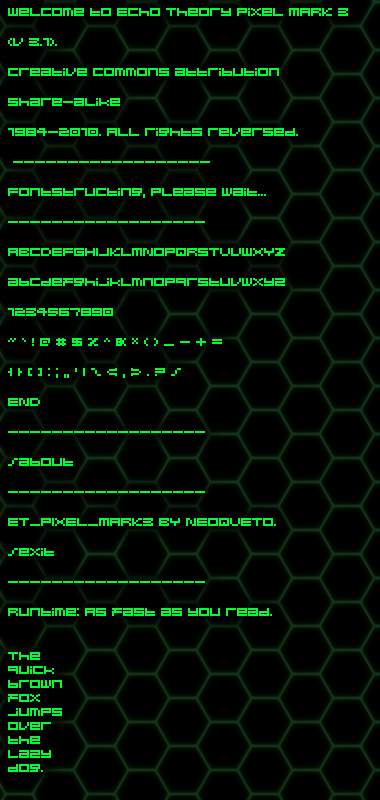
• Oh God, my hands are shaking, and numb... 454 characters in one hour... That's still unfinished yet, but I'm seriously tired, so tomorrow I'll finish it. Pixel_Mark3 is a pixel/bitmap typeface made for use in my game. My objective was to use thickness of every character to at least two bricks, but somewhere it was just impossible, but basically I've made what I wanted to be done. IMPORTANT!: This typeface will look smaller in any program, because of some special characters. Optimal size is 32 pt without dithering or 16 pt.
A simple pixel font created with style and functionality in mind. The character set is astonishing. 10/10
ET_Pixel_Mark3by Neoqueto